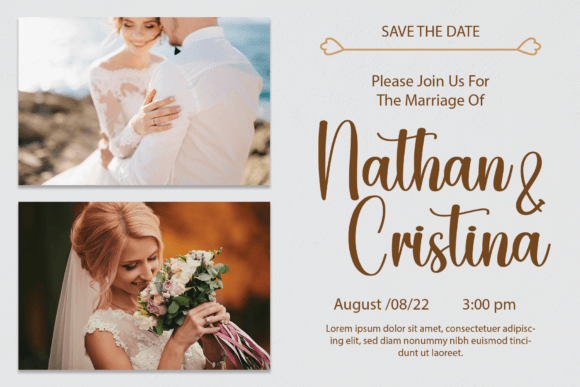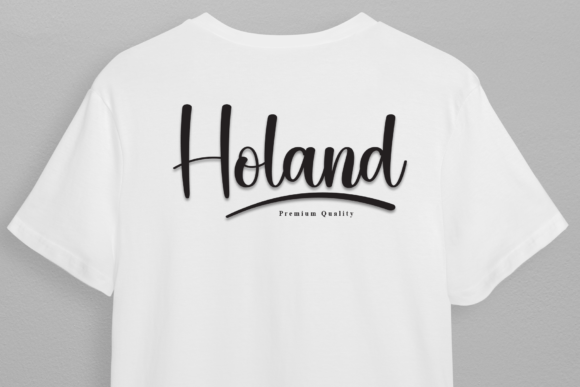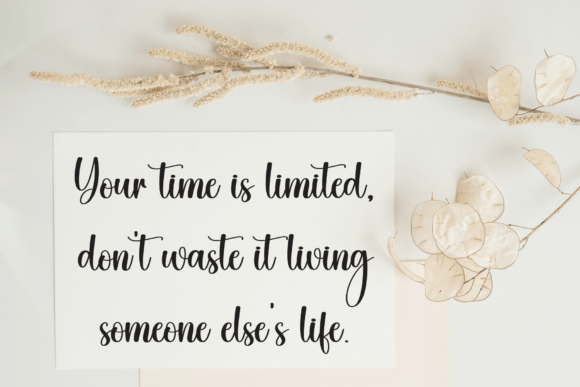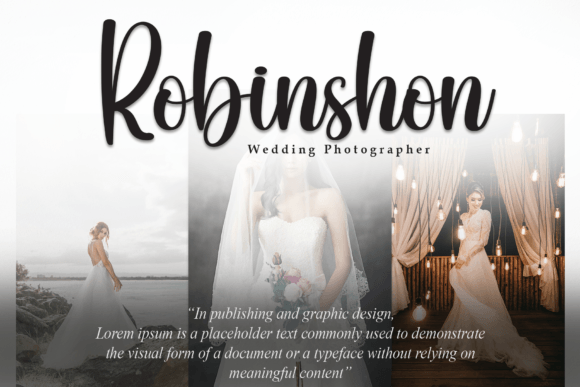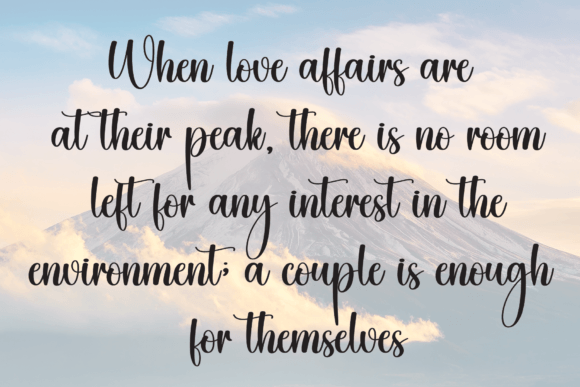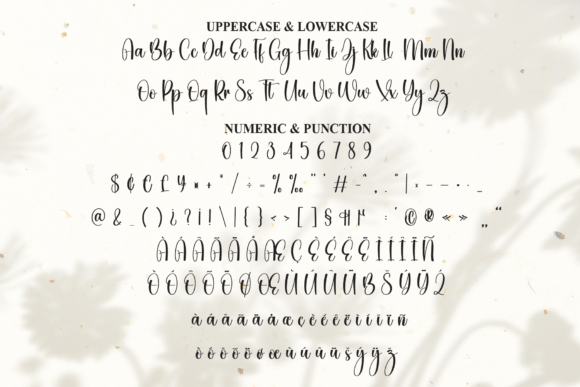
Introducing Camelia Font: The Perfect Handwritten Style for Your Creative Projects
Are you looking for a font that adds a personal touch to your designs? Look no further than Camelia Font. This clean and bold handwritten font is perfect for making your projects stand out. With its neat handwriting style, Camelia Font is easy to read and understand, making it ideal for a wide range of applications.
What Makes Camelia Font Special?
Camelia Font is a unique and stylish font that is designed to give your projects a personal and human touch. Its bold style makes your words stand out beautifully, while its clean and neat handwriting style ensures that your text is easy to read. Whether you’re creating invitations, greeting cards, or social media posts, Camelia Font is the perfect choice.
Key Features of Camelia Font
- Clean and Bold Handwritten Style: Camelia Font features a clean and bold handwritten style that looks like neat handwriting.
- Easily Readable: The font is designed to be easy to read, making it perfect for body text and headings.
- Perfect for Personal Projects: Camelia Font is ideal for personal projects, such as invitations, greeting cards, and social media posts.
- Stand Out Text: The bold style of Camelia Font makes your text stand out beautifully, grabbing the attention of your audience.
Uses of Camelia Font
Camelia Font is a versatile font that can be used in a wide range of applications. Here are some ideas to get you started:
- Invitations: Use Camelia Font to create beautiful and personal invitations for weddings, birthdays, and other special occasions.
- Greeting Cards: Add a personal touch to your greeting cards with Camelia Font, making them stand out from the crowd.
- Social Media Posts: Use Camelia Font to create eye-catching social media posts that grab the attention of your followers.
- Branding and Packaging: Camelia Font can also be used for branding and packaging, adding a personal and human touch to your products.
Why Designers and Crafters Love Camelia Font
Designers and crafters love Camelia Font for its unique and stylish design. Here are some reasons why:
- Unique and Stylish: Camelia Font is a unique and stylish font that adds a personal touch to any project.
- Easily Customizable: The font is easily customizable, allowing you to adjust the size, color, and style to fit your needs.
- Time-Saving: With Camelia Font, you can save time and effort, as it’s easy to use and doesn’t require a lot of design expertise.
Tips for Using Camelia Font
Here are some tips for using Camelia Font effectively:
- Use it for Headings and Titles: Use Camelia Font for headings and titles to add a personal touch and make your text stand out.
- Pair it with Other Fonts: Pair Camelia Font with other fonts to create a unique and stylish design.
- Experiment with Colors: Experiment with different colors to find the perfect combination that fits your brand or project.
In conclusion, Camelia Font is a clean and bold handwritten font that is perfect for adding a personal touch to your projects. With its neat handwriting style and bold style, it’s easy to read and makes your words stand out beautifully. Whether you’re a designer or crafter, Camelia Font is a great choice for any project. So why not give it a try and see the difference it can make?